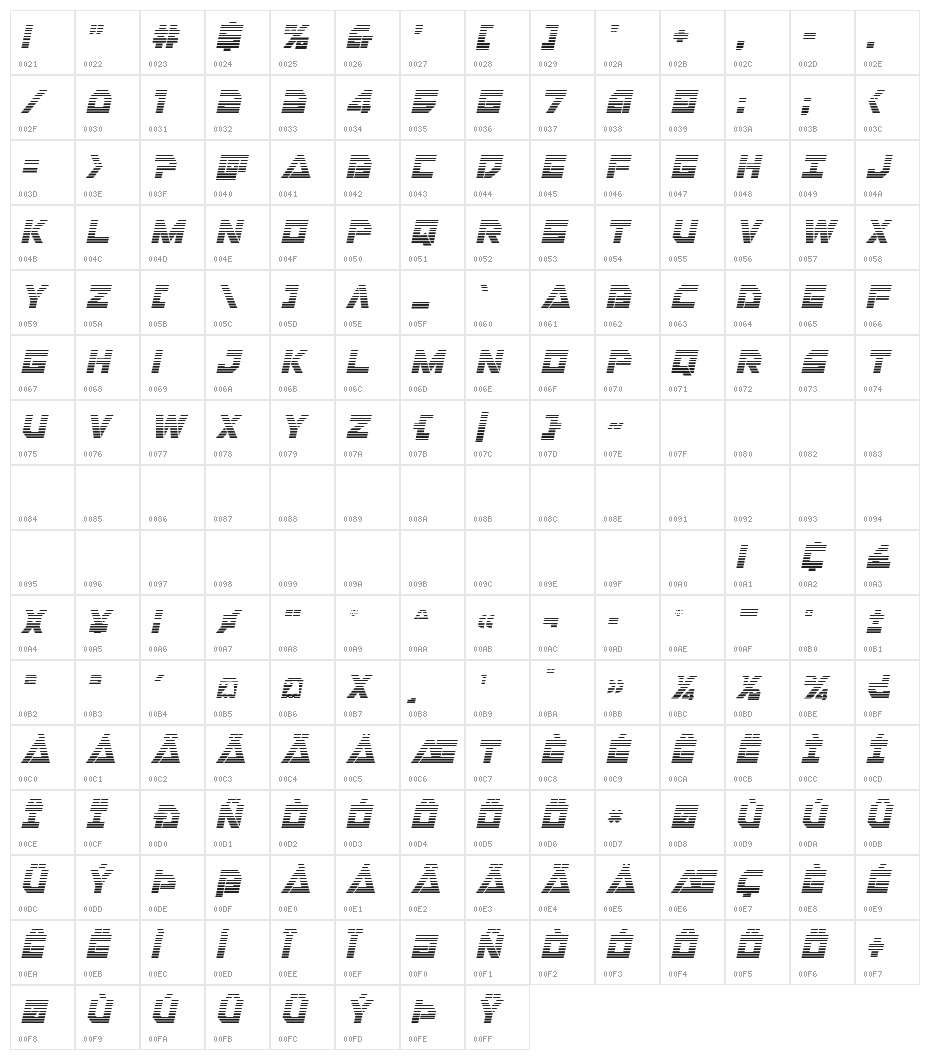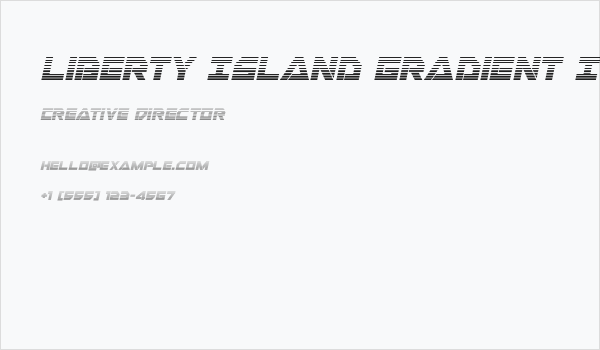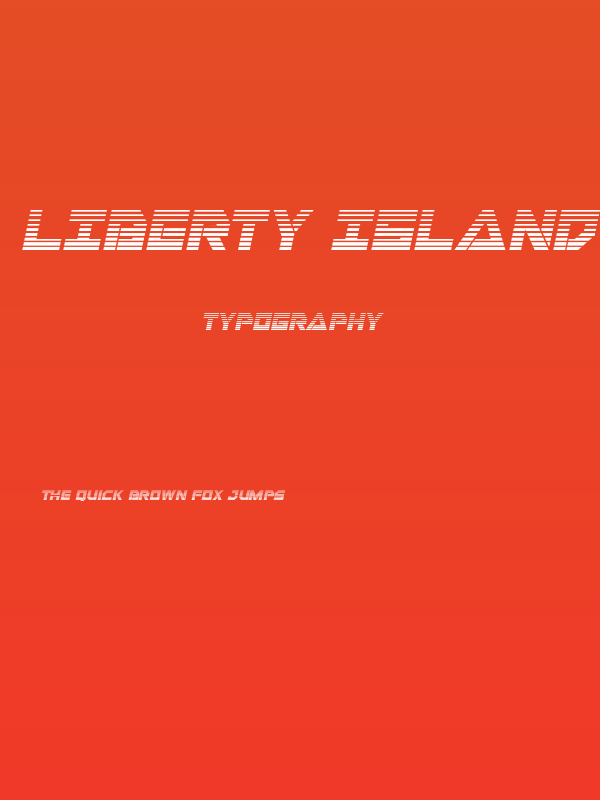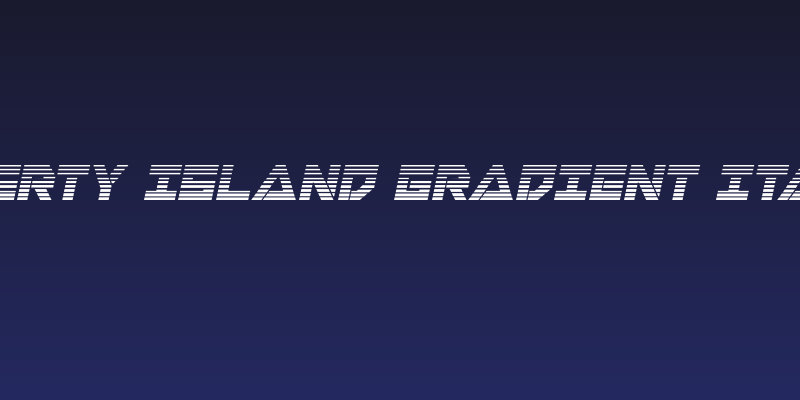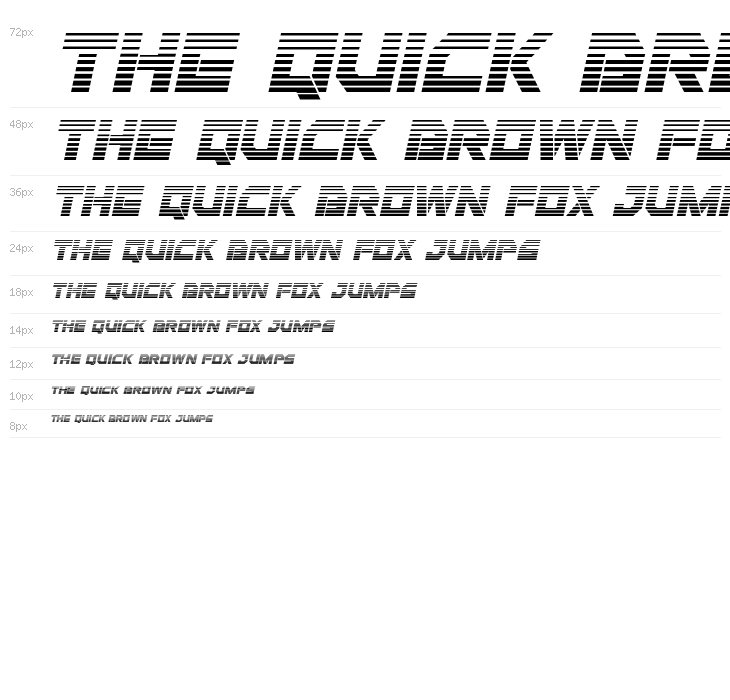
Liberty Island Gradient Italic Font
Liberty Island Gradient Italic Description
This font features a bold, italicized design with a unique gradient effect created by horizontal lines. Each character is constructed with a series of parallel lines that give it a dynamic, futuristic appearance. The uppercase and lowercase letters maintain a consistent style, with sharp angles and a slightly condensed form. Numbers and special characters follow the same design principles, ensuring uniformity across all glyphs. The overall look is modern and eye-catching, making it suitable for projects that require a strong visual impact.